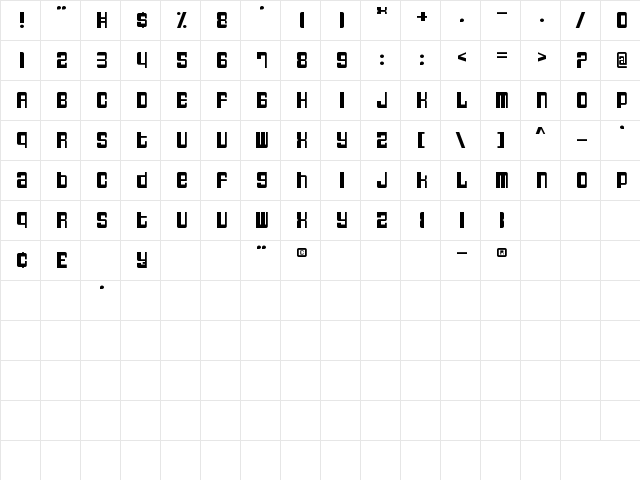
Breaked Regular
| Designer | Adhi Setya Putra Jati Kusuma |
Design Context for Breaked Typeface
Breaked is a composed and adaptable typeface that performs quietly and consistently across a wide range of design contexts.